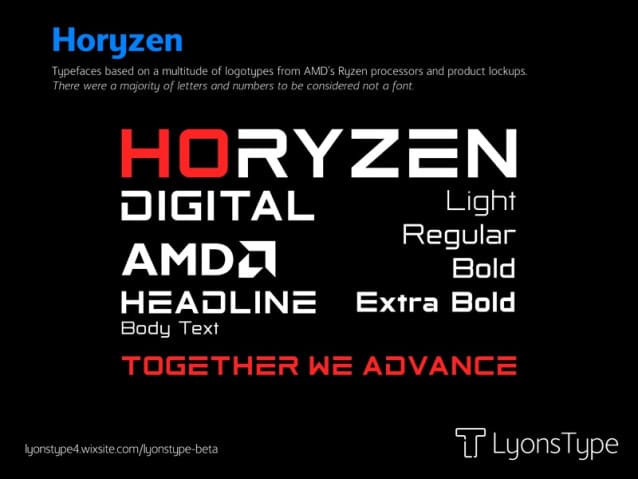
Horyzen Font, typefaces based on a multitude of logotypes from AMD’s Ryzen processors and product lockups. There were a majority of letters and numbers to be considered not a font.
| Designer Name: | LyonsType |
| Classification: | Display Fonts, Sans Serif Fonts, Techno / Futuristic Fonts |